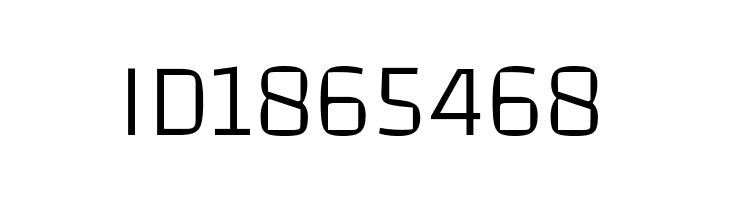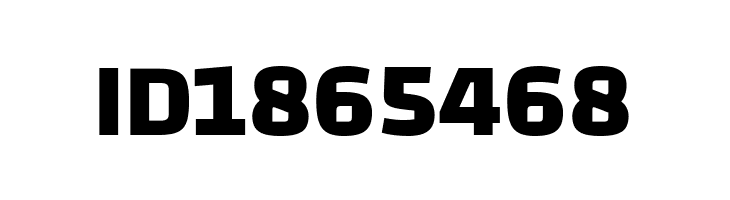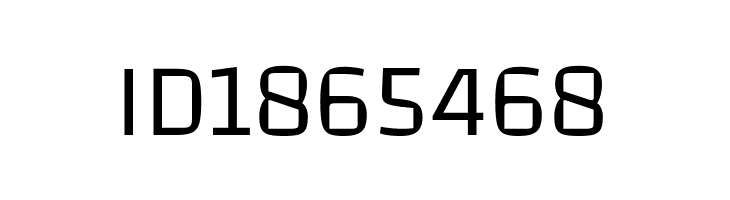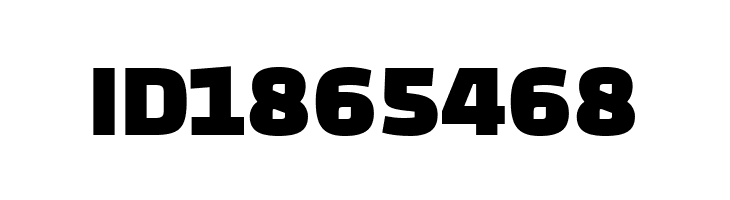
A modern, geometric sans-serif font with clean lines and balanced spacing.
A bold, modern sans-serif font with strong, thick strokes.
A modern, geometric sans-serif font with a clean and versatile design.
A bold, modern font with thick strokes and a strong presence, ideal for headlines.
A bold, modern sans-serif font with a clean and robust appearance.
A modern, geometric typeface with clean lines and balanced proportions.
A modern, clean sans-serif font with medium contrast and slightly condensed width.
A bold, modern sans-serif font with clean lines and strong presence.